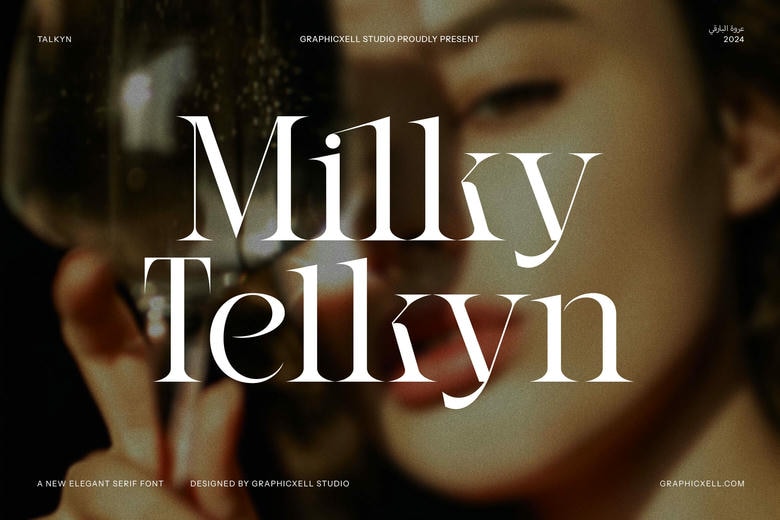
Milky Telkyn Font
Milky Telkyn is a square design ligature serif font. Thus, this typeface has been developed consideringly to ensure that it is of high quality and gives the luxury look. Within this typeface, the ligatures are used to distinguish this font from the run-of-the-mill serif font.
Milky Telkyn Serif Font